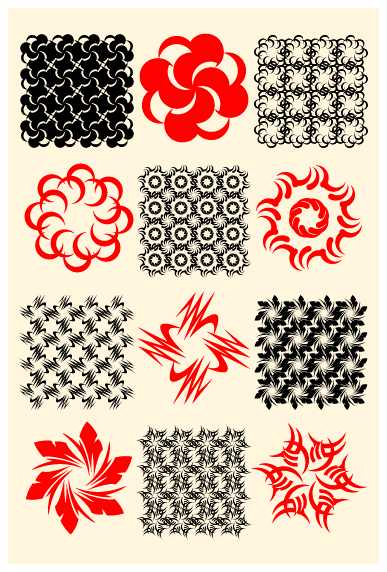
This text was first published in 1993 in the type specimen booklet for Whirligig and Suburban.
Each Whirligig illustration is composed from a repetition of small elements; some fairly straightforward geometric constructions, others more organic forms which evolved from the process of adjusting the positive and negative space as necessary to balance the element visually within the structure of a particular repetition sequence.
By applying a precise structure of repetition, be it in multiples of two, three, four, six or eight, concentrically or diagonally, these relatively simple elements support each other into units of higher complexity. In turn, the composed units create ever more complex patterns when repeated in various combinations, which can further be composed into macro patterns. This evolution of elements into structures into patterns yields images analogous to those seen when viewing the world through a microscope, telescope, and kaleidoscope.
This collection of 152 Whirligigs contains 126 concentric illustrations, ten sets of symmetrical borders, and six connecting illustrations. Repeating the connecting illustrations creates an interlocked pattern, which serves as an embedding framework when combined alternately with any of the concentric ones.
Since each illustration, as well as the space bar, is the same width, any combination will yield a perfectly aligned block; borders can be composed by typing the appropriate number of space bars to fill out the void in the frame. This, of course, is just a starting point for Whirligig usage; use your imagination to create a virtually endless variety of textures by combining repetitions of different illustrations.
Borders, Patterns & Textures
The Whirligig illustration package includes 126 concentric illustrations, ten sets of symmetrical borders and six connecting illustrations.